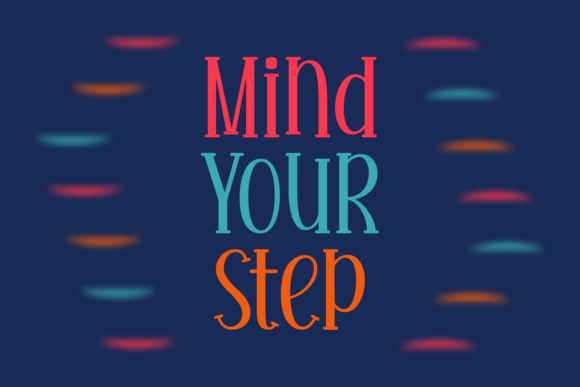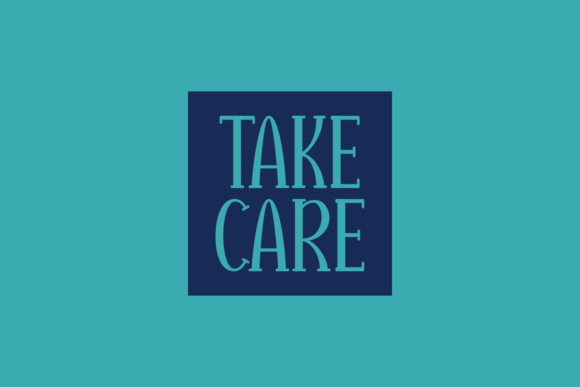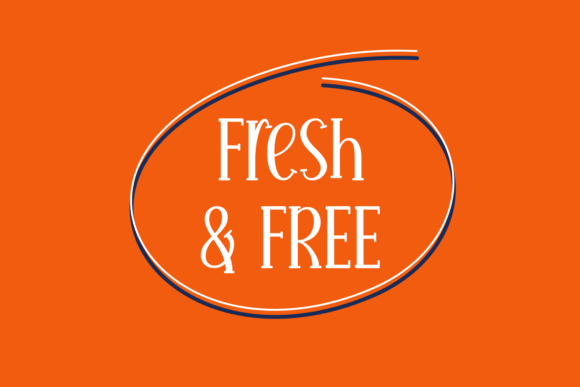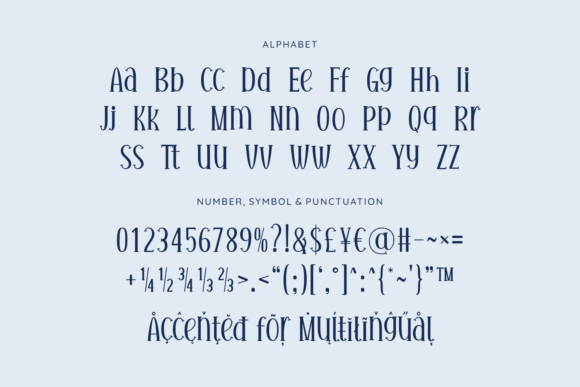
Mind Your Step Font
About Mind Your Step Font
Mind Your Step is a lovely handwritten font. The playfulness of the characters will perfectly match your next creative project! Use this lovely and refreshing typeface for cards, posters, digital designs, kids’ fabric prints, and more.